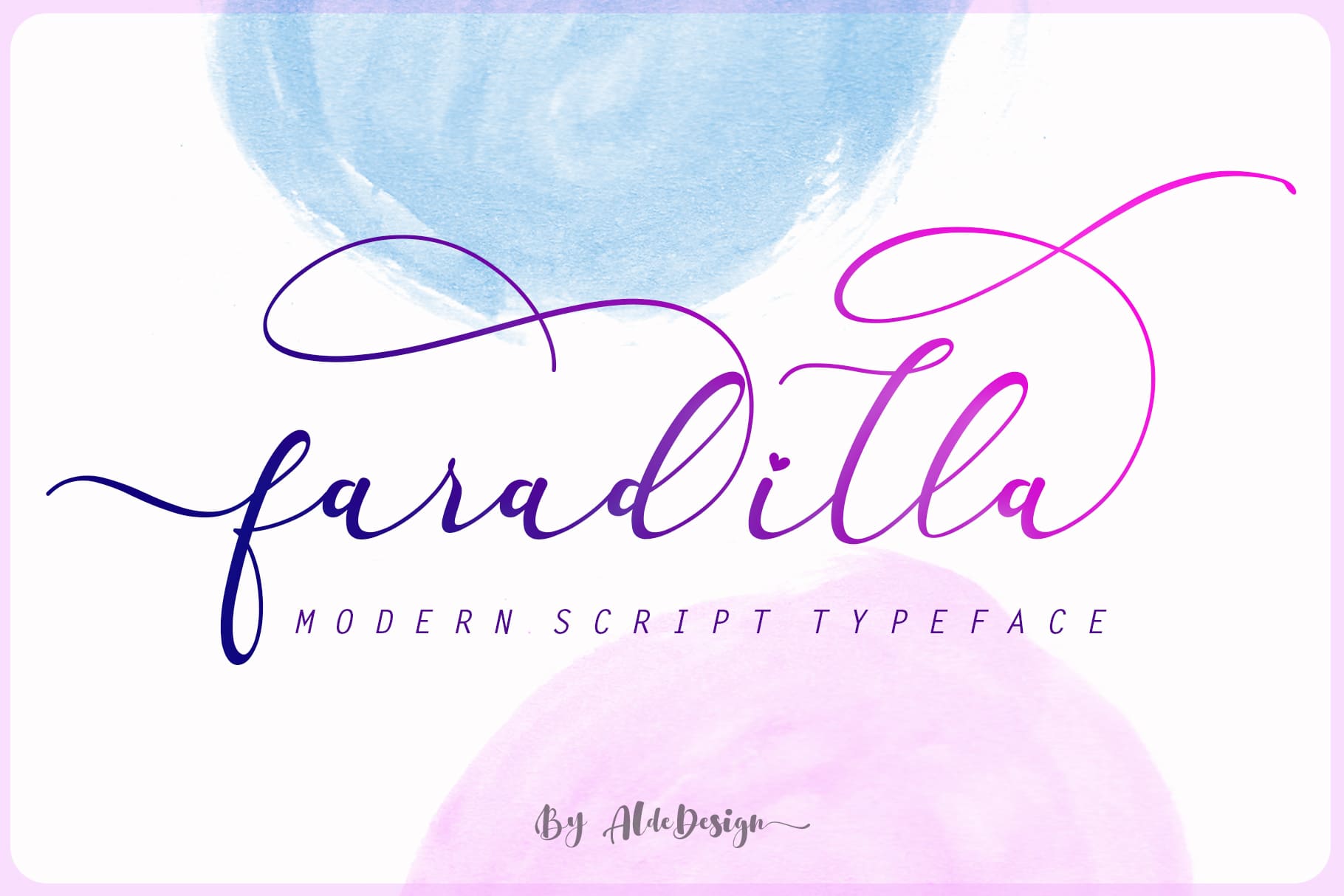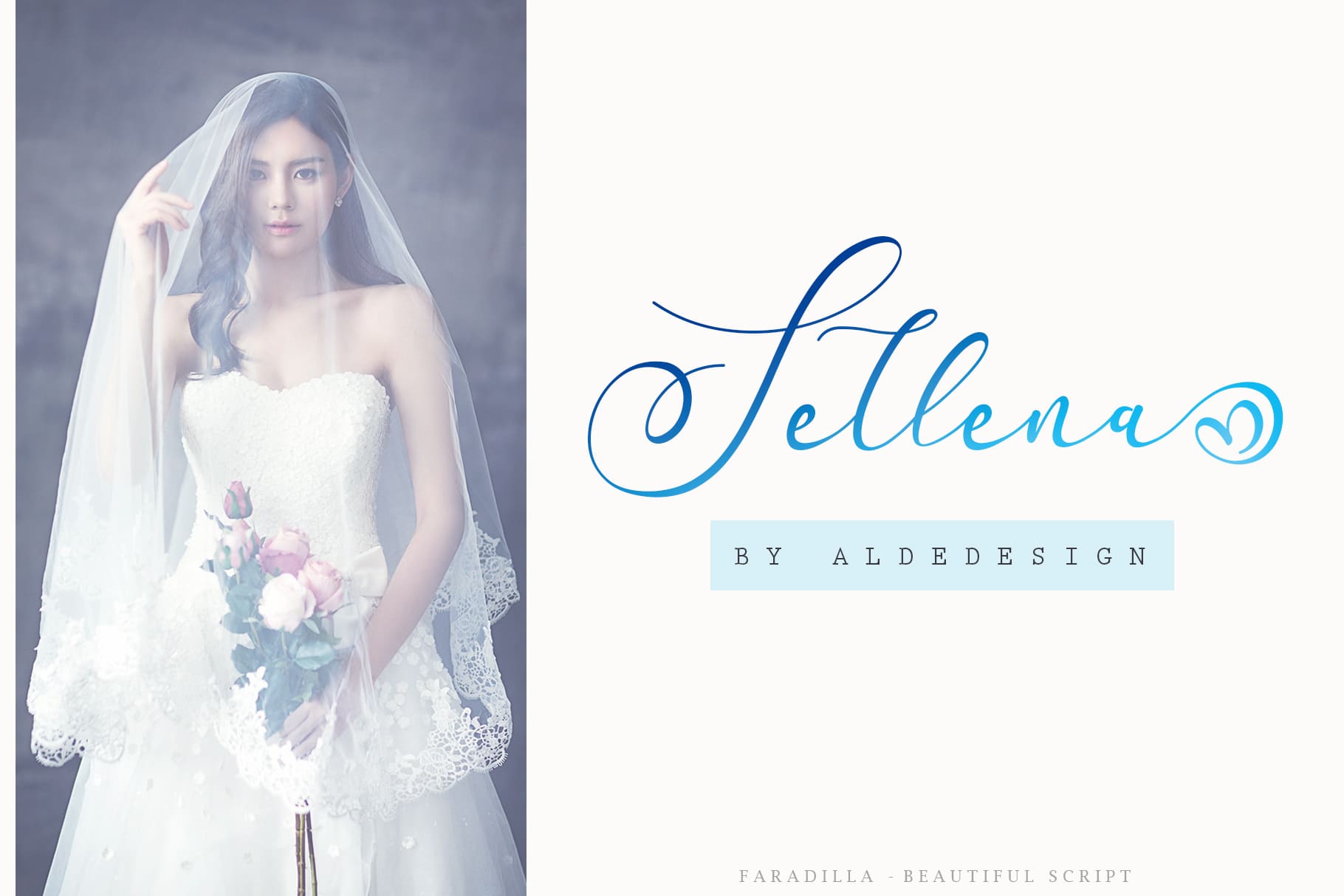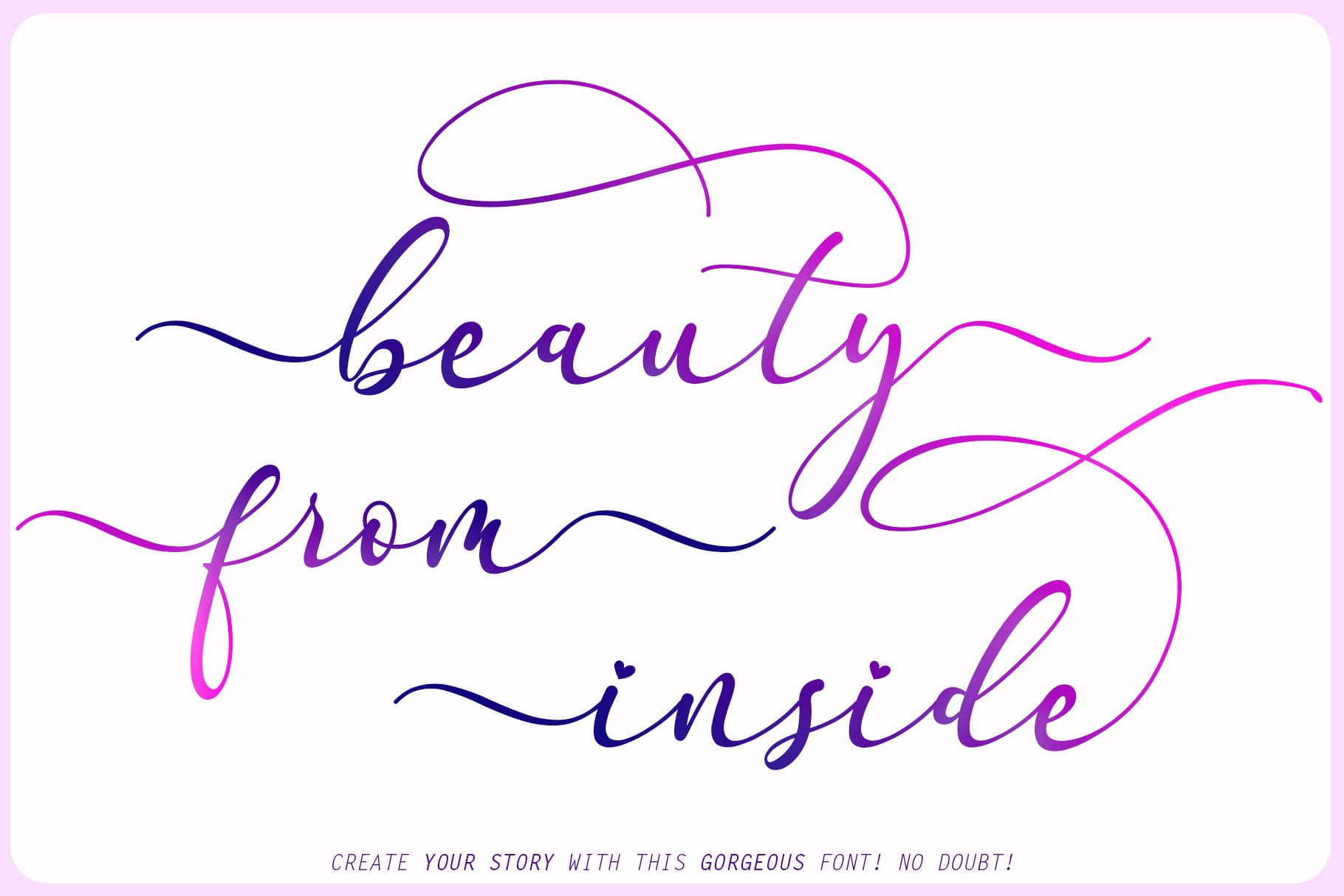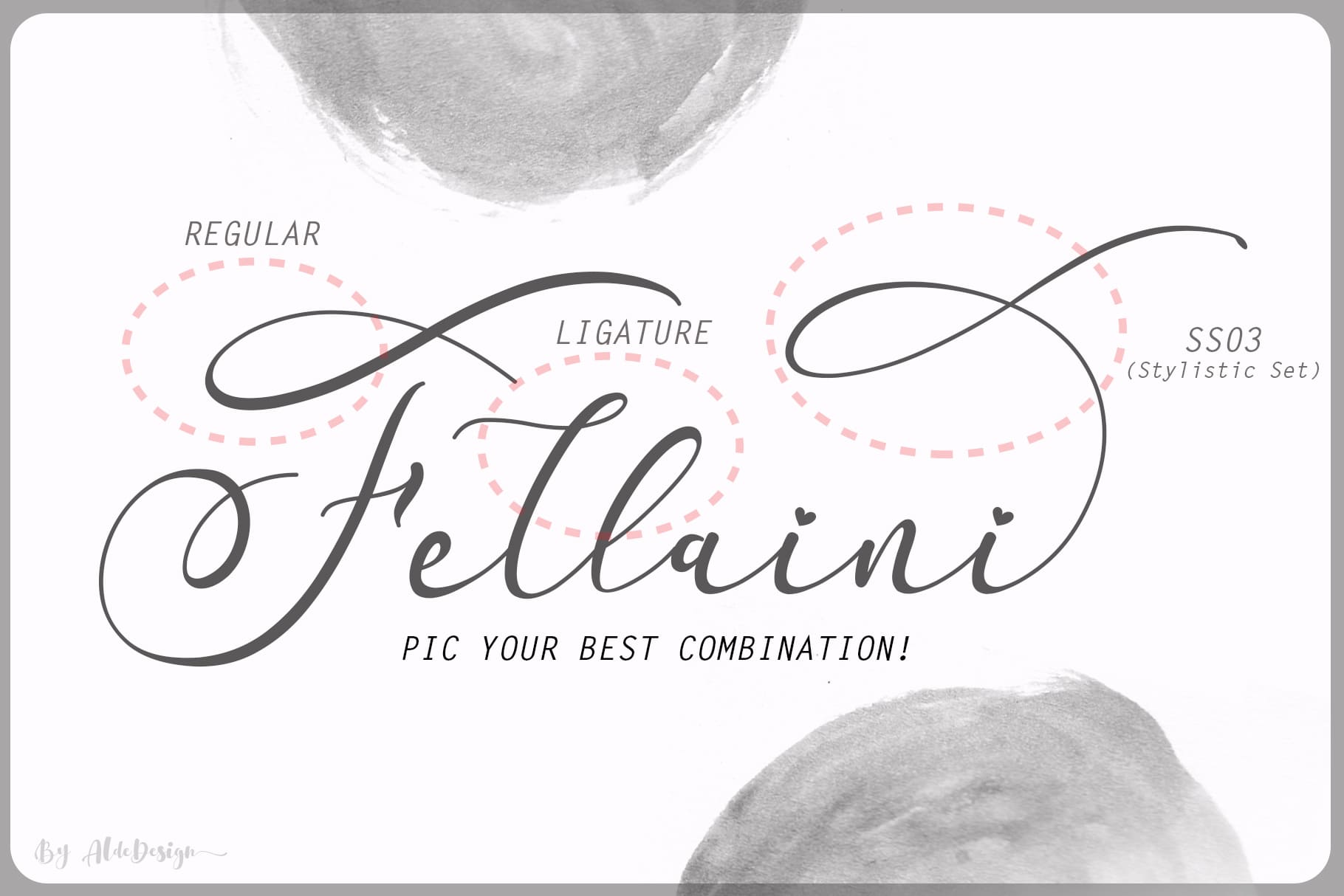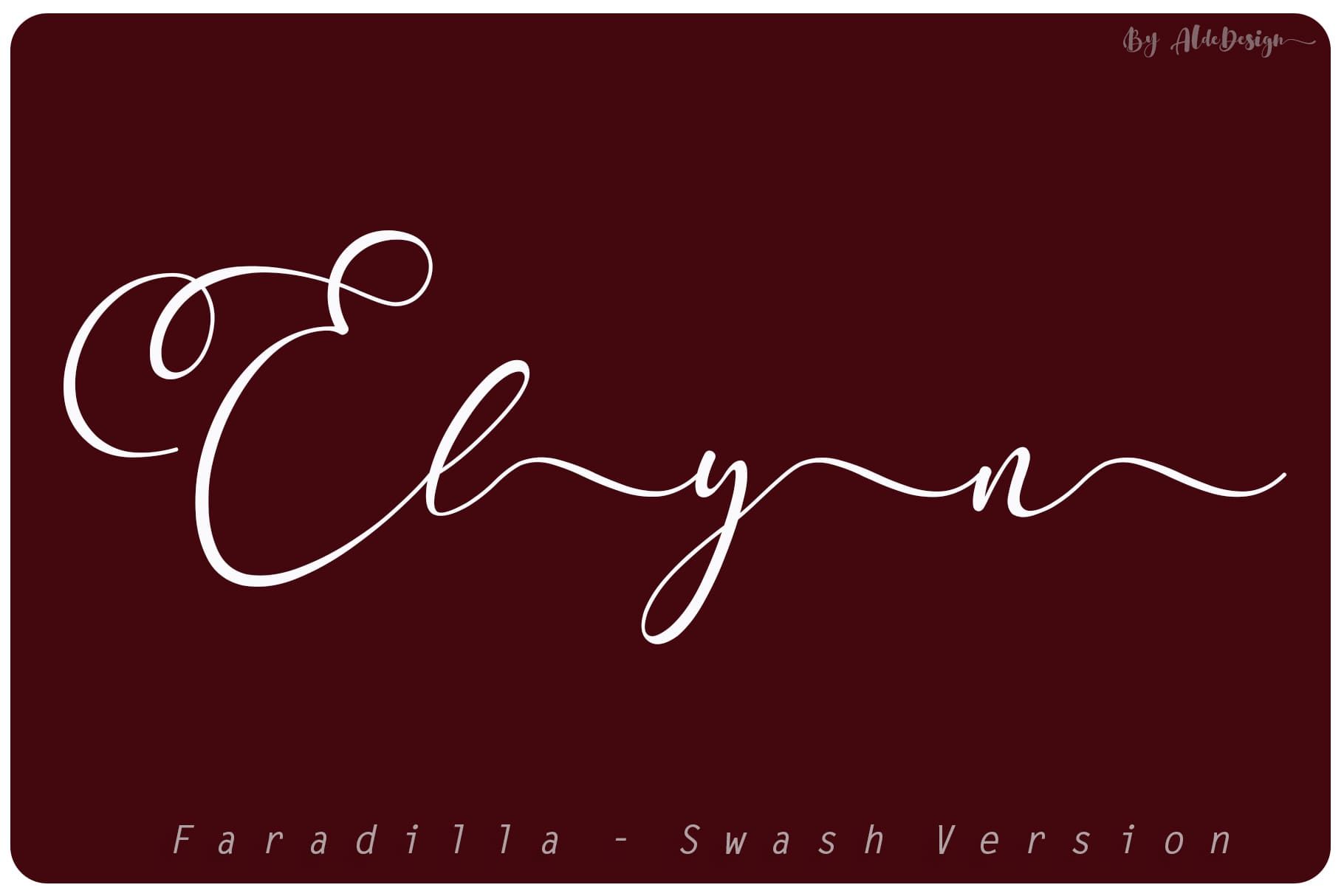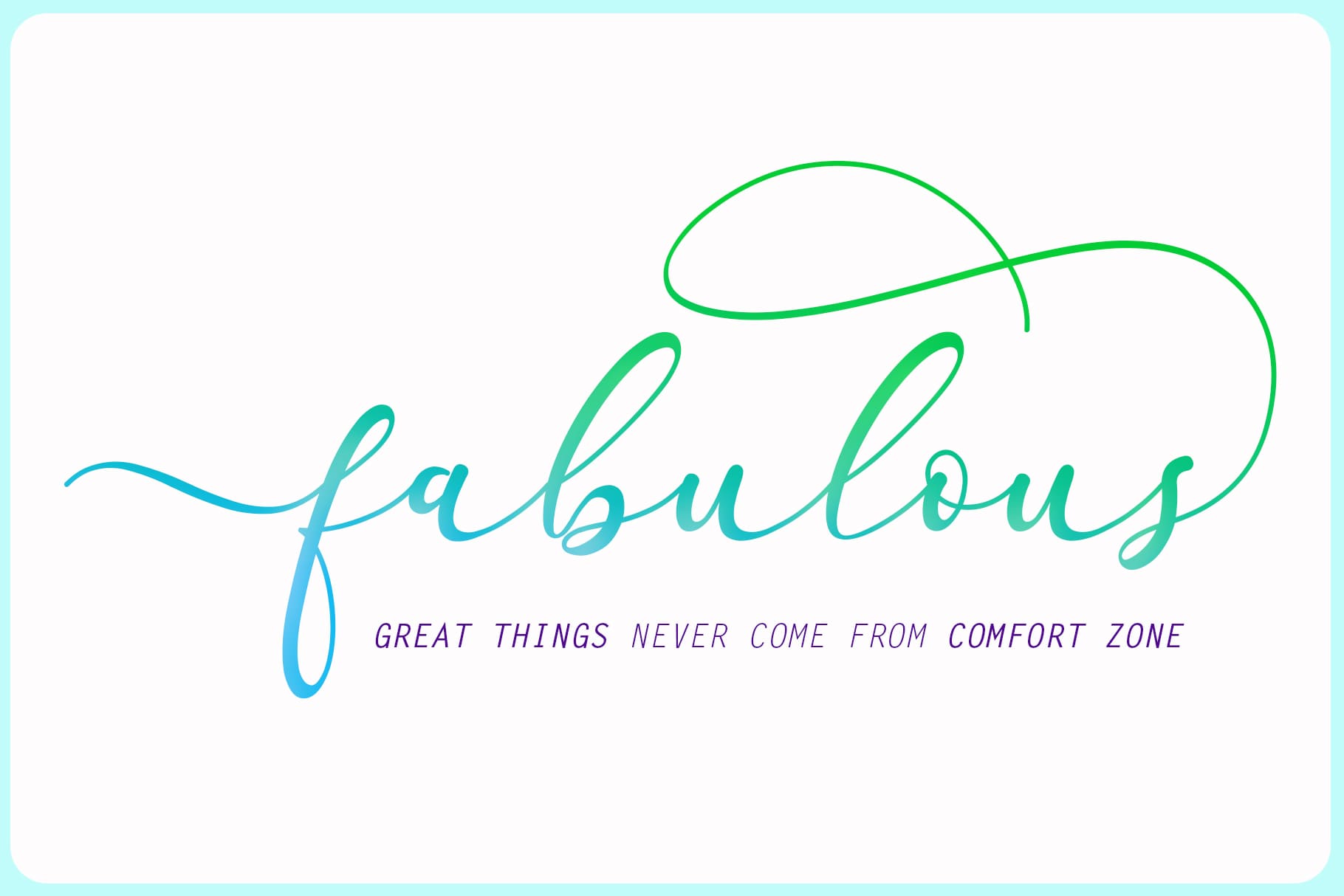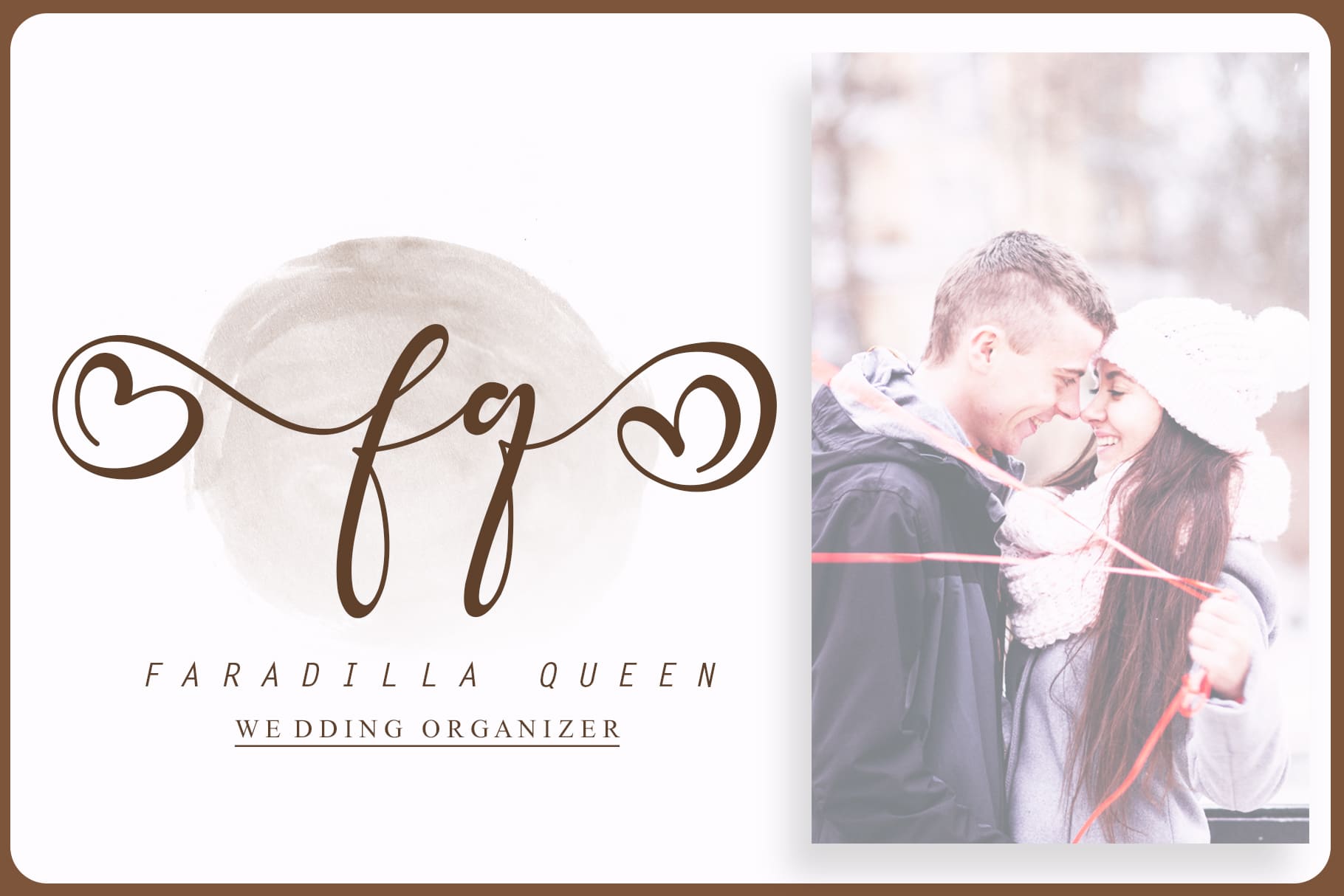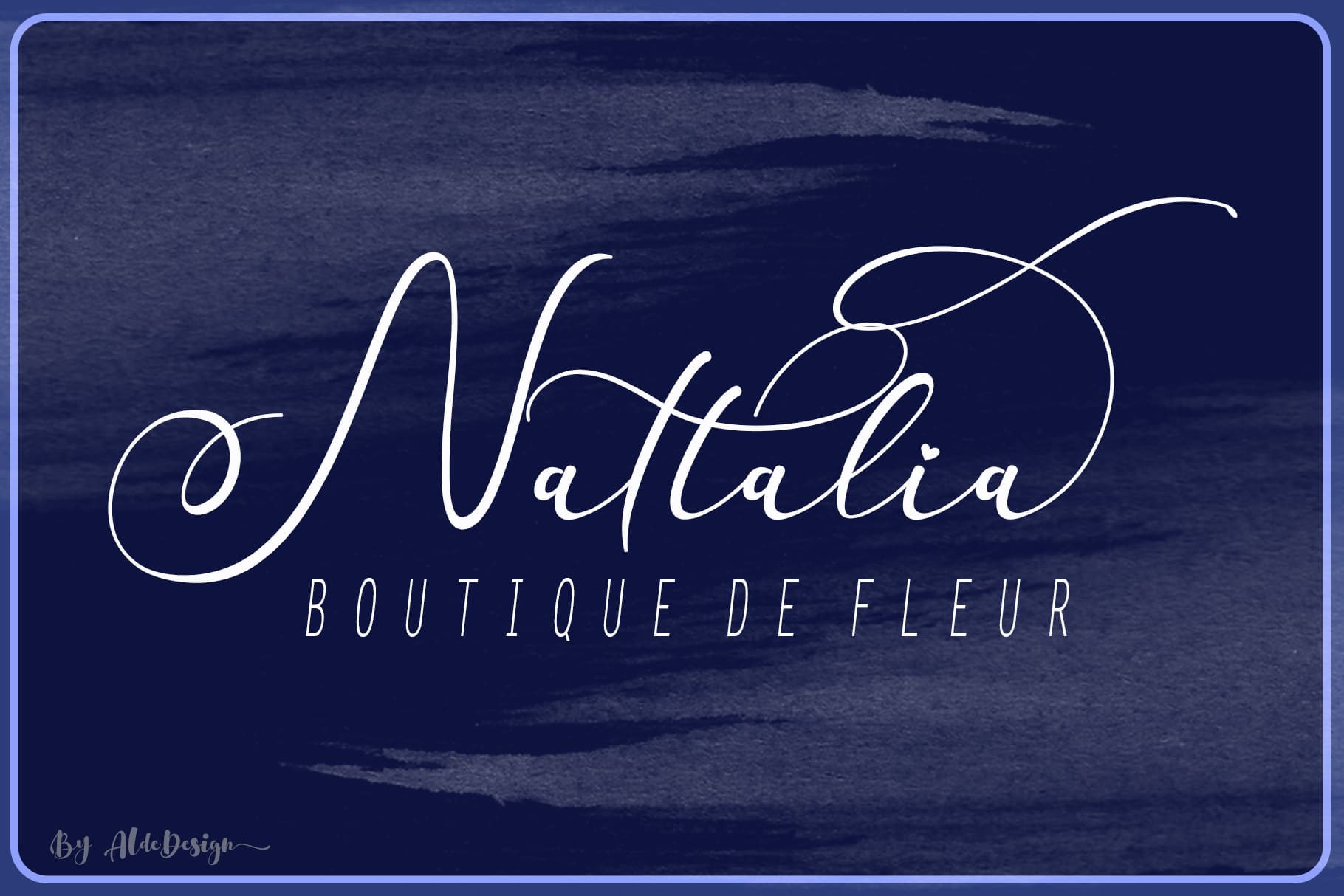
Faradilla Script Family (6 fonts)
From AldeDesign
Faradilla is a modern script font great for your branding designs and can be used for many other design projects such as headings, weddings, invitations, signatures, logos, branding, t-shirts, letterhead, posters, badges etc.